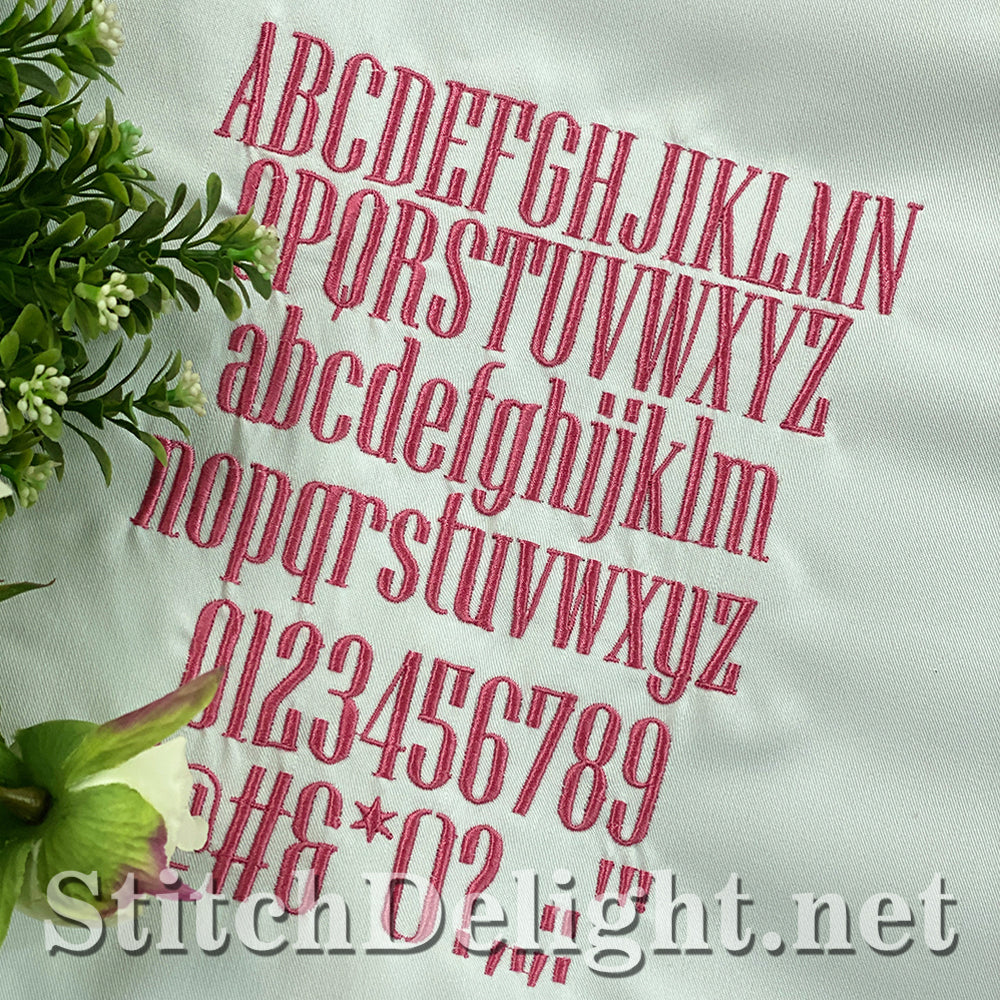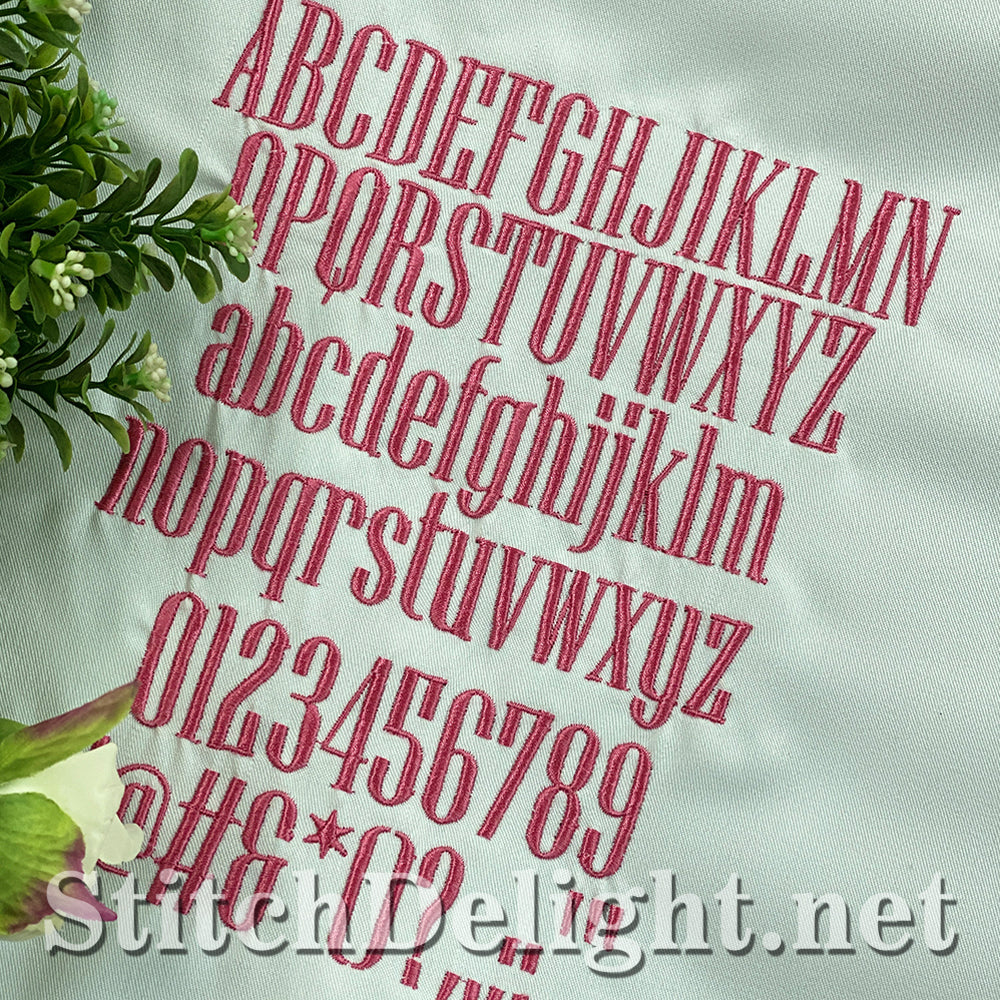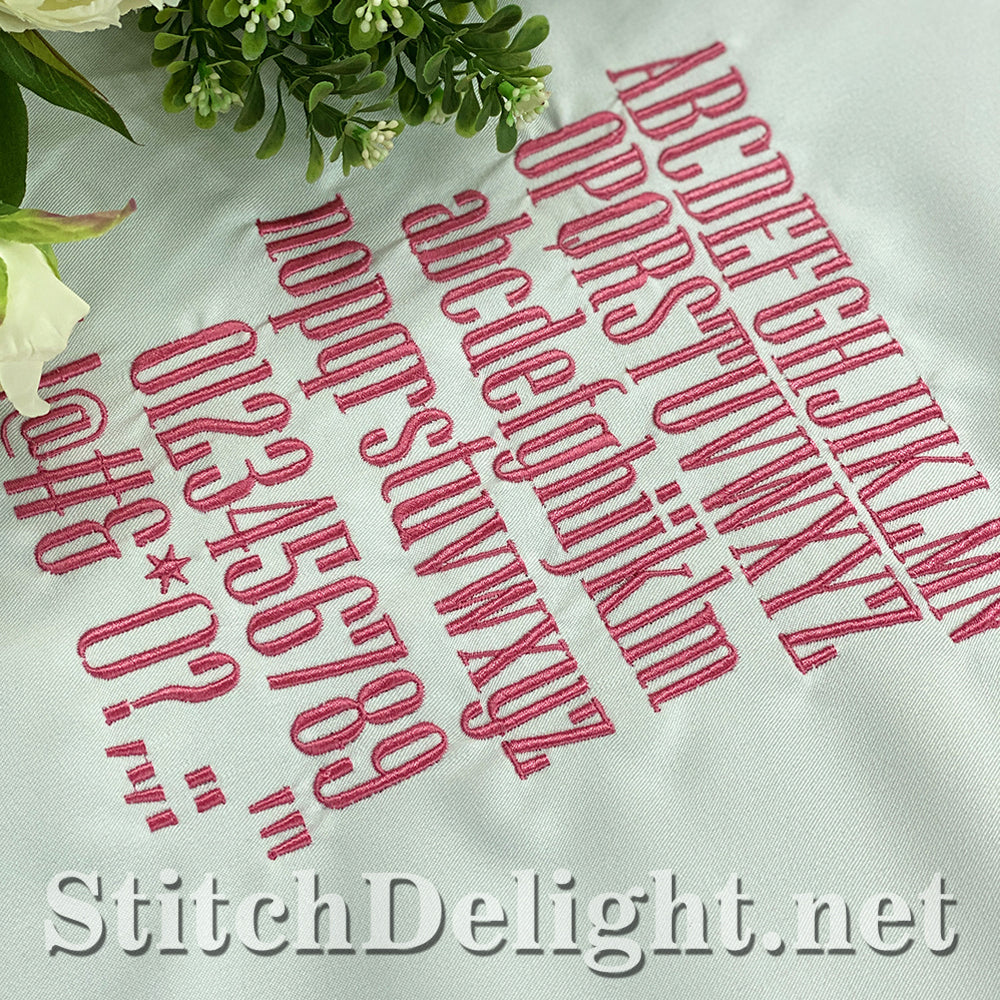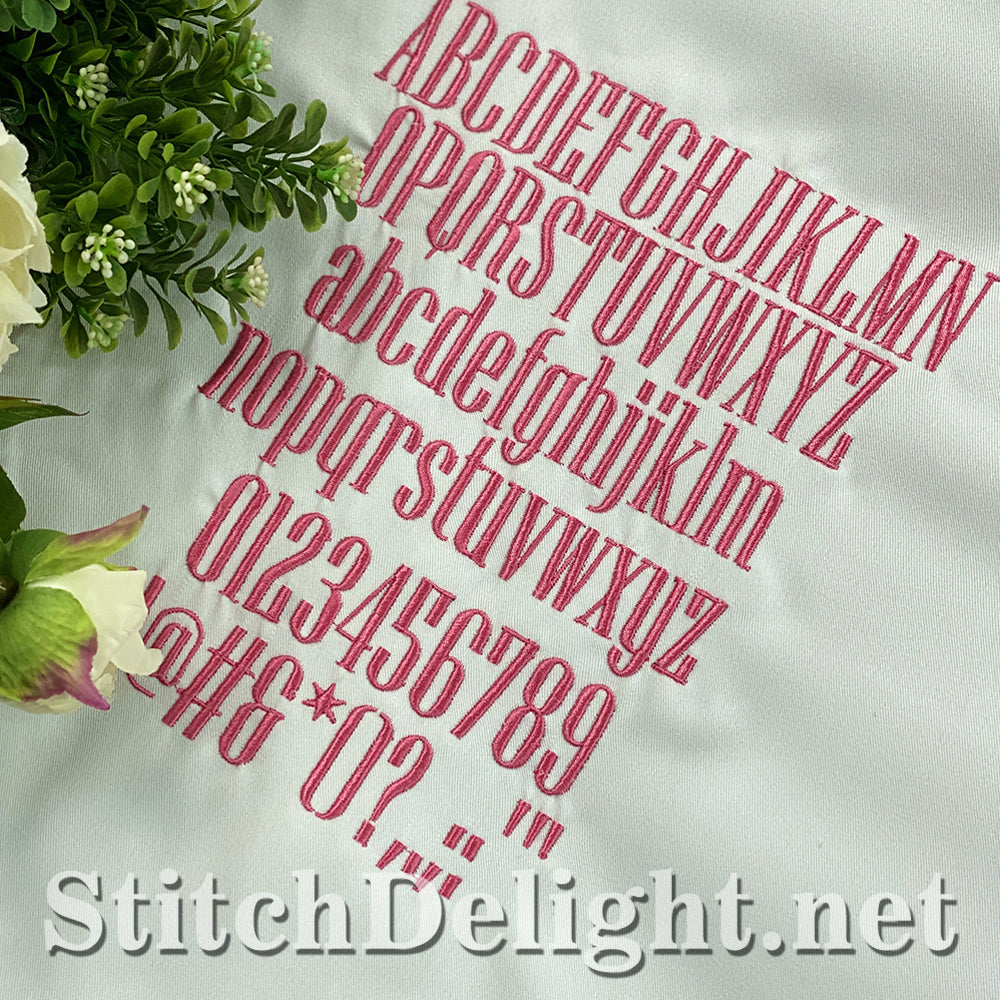
A stunning narrow block type font with a height of 1.2inch - When you need a lot of text in a narrow space, this comes in very handy. BX Format included